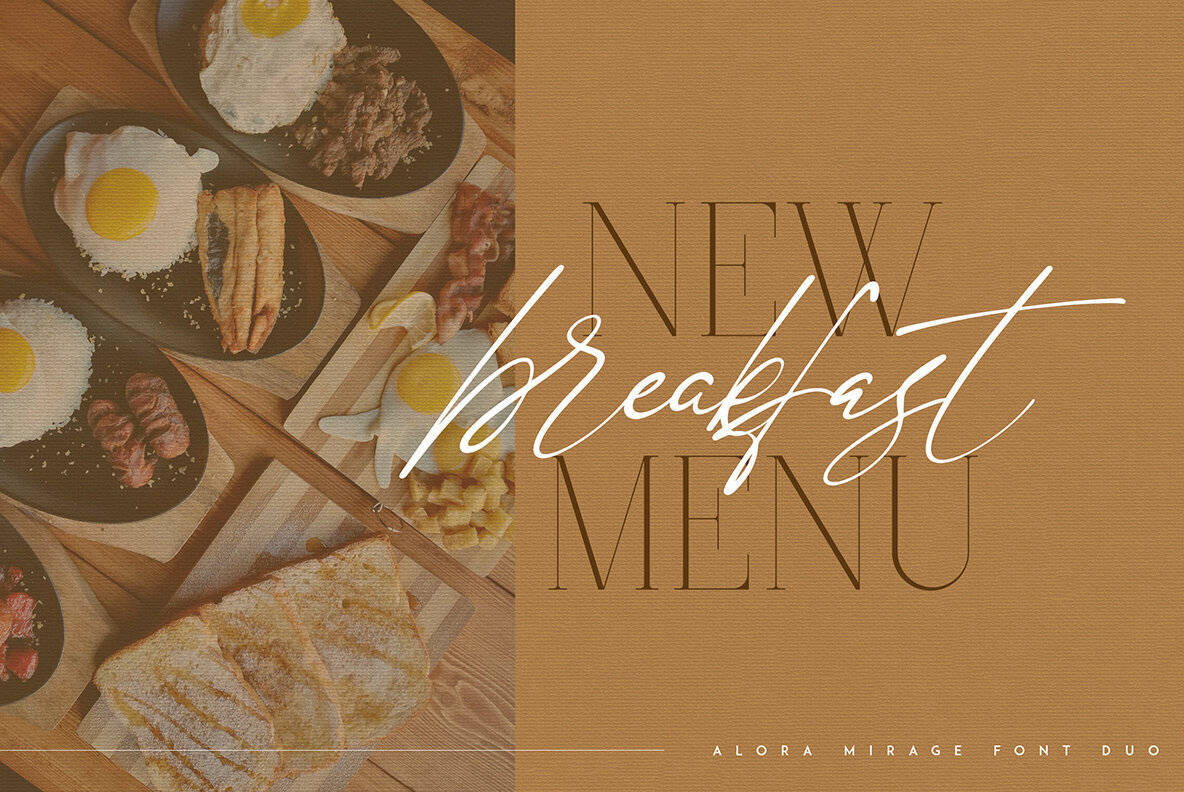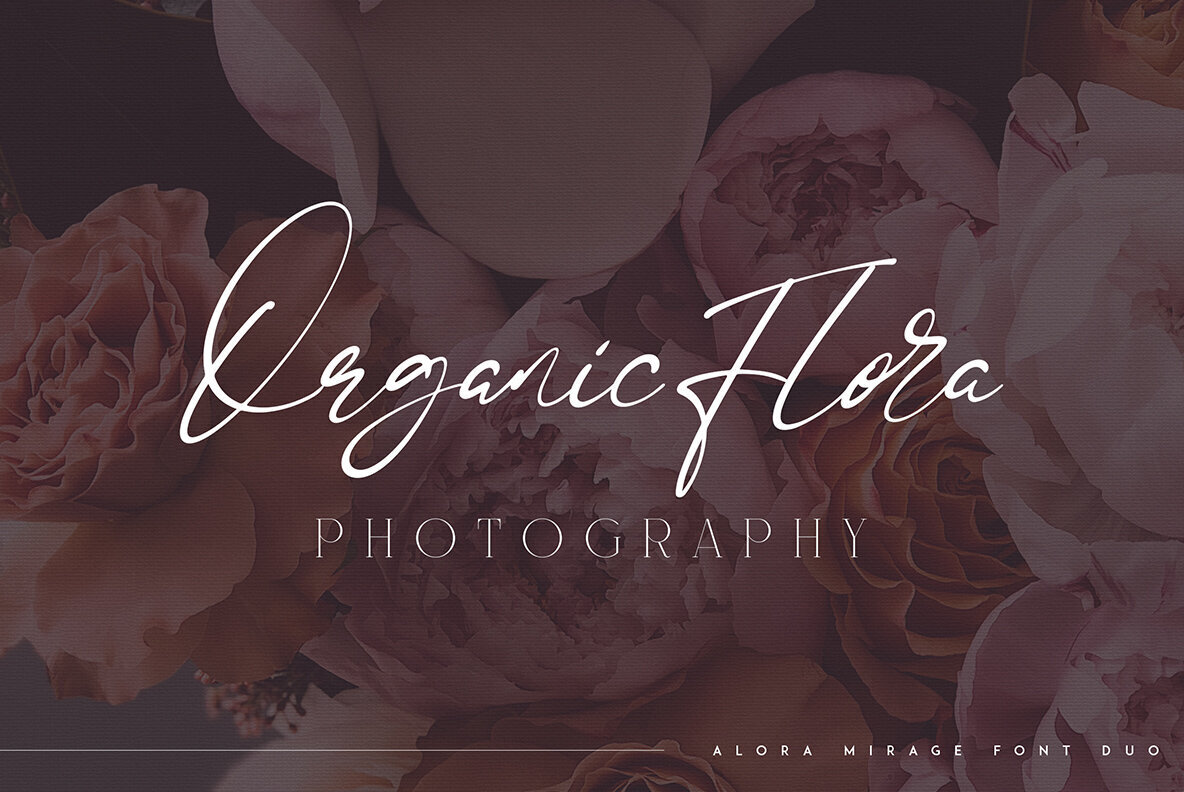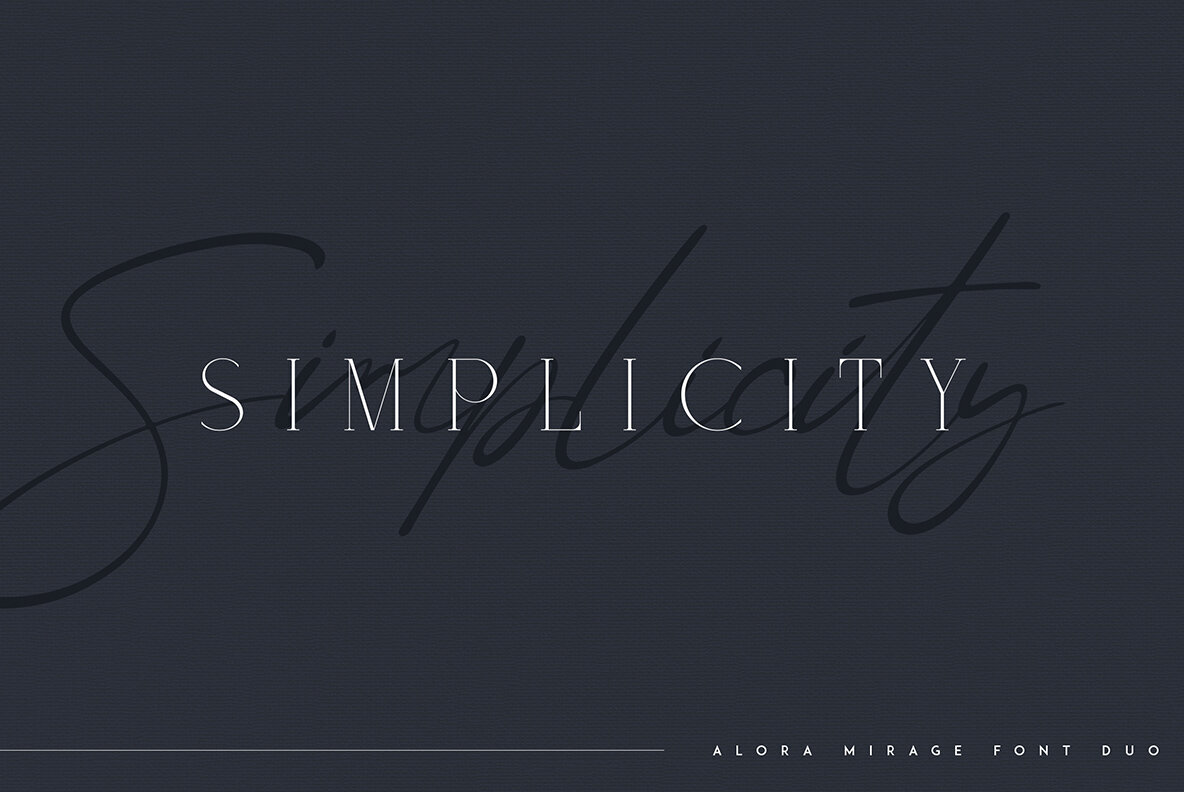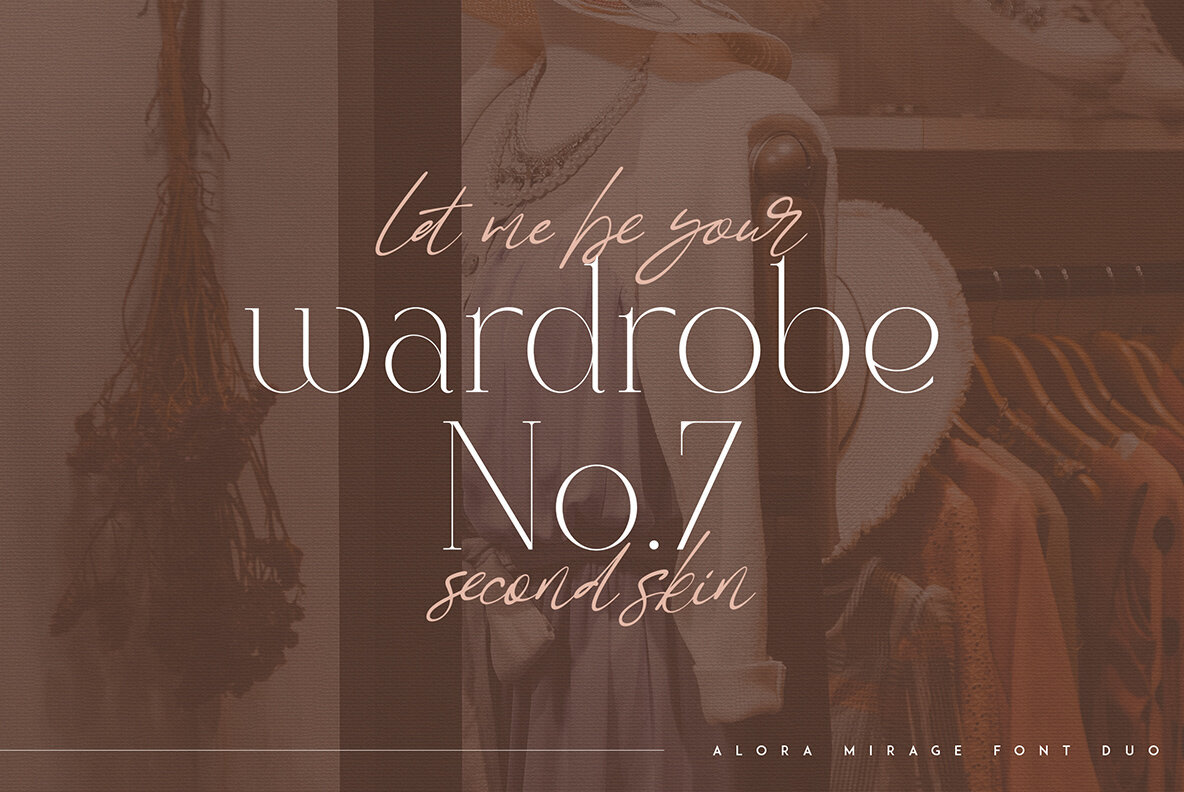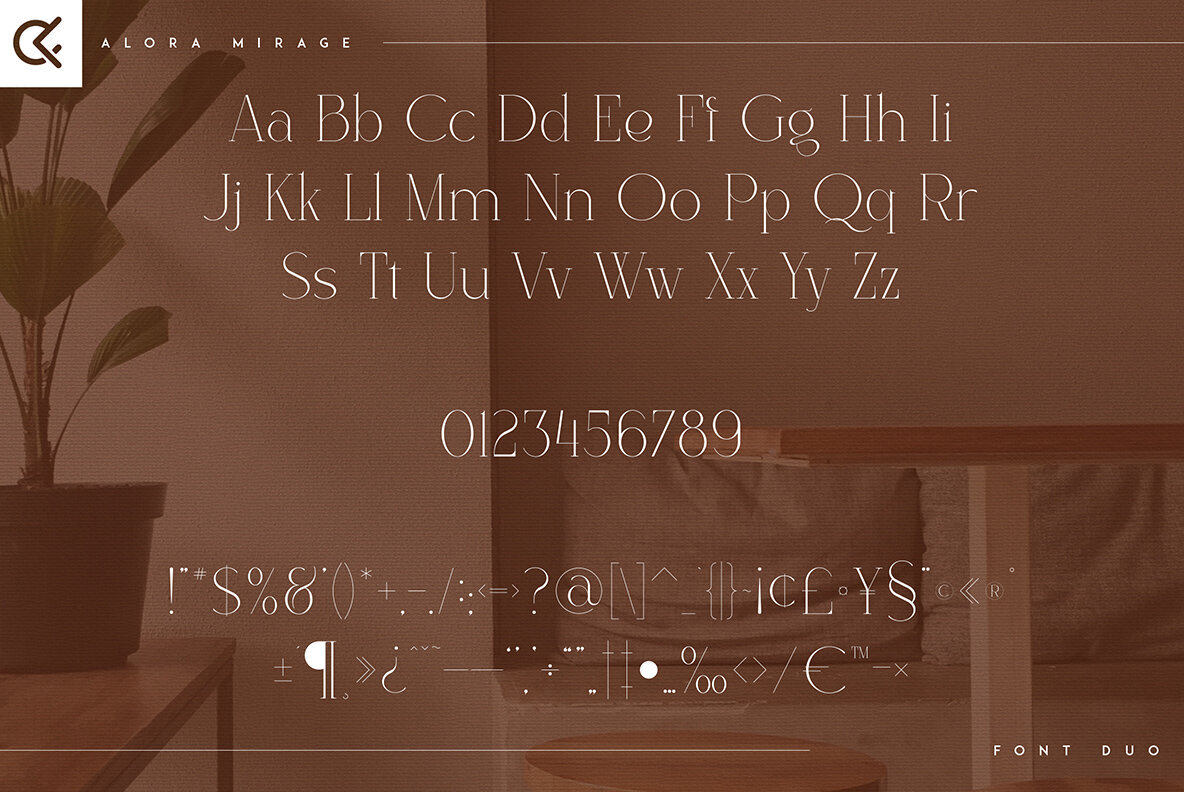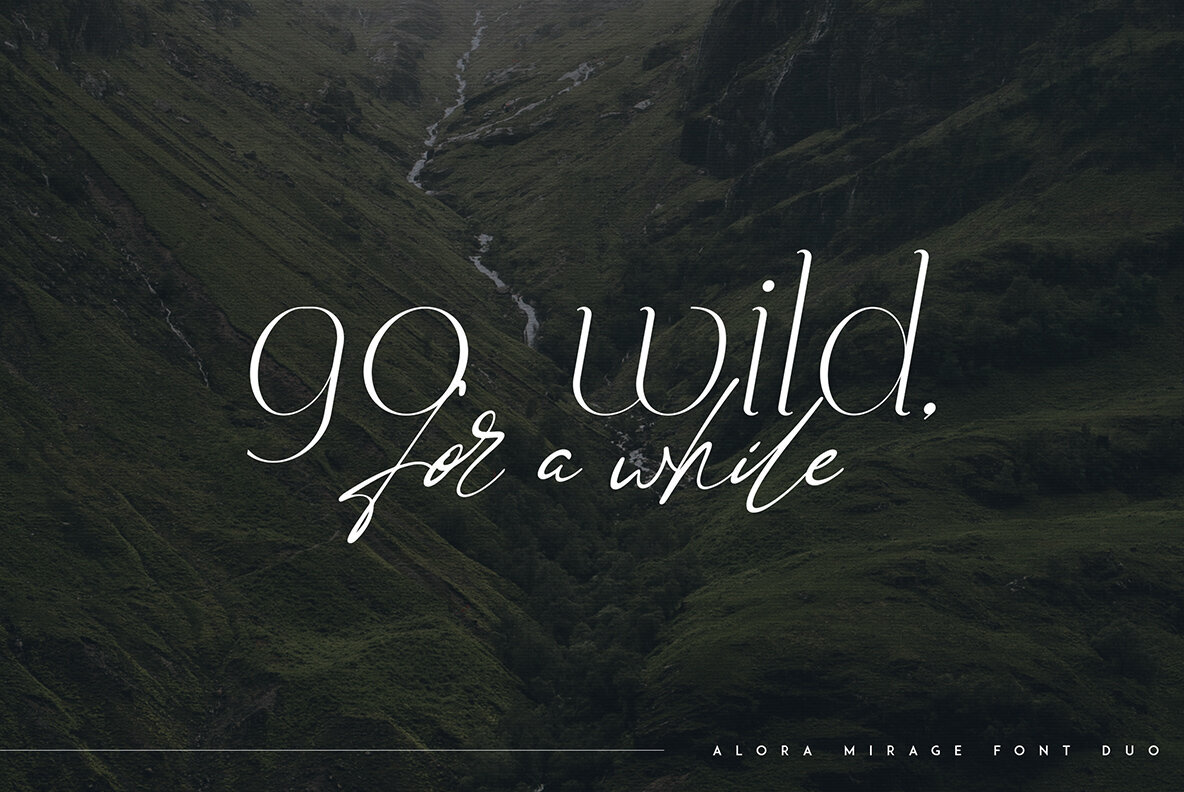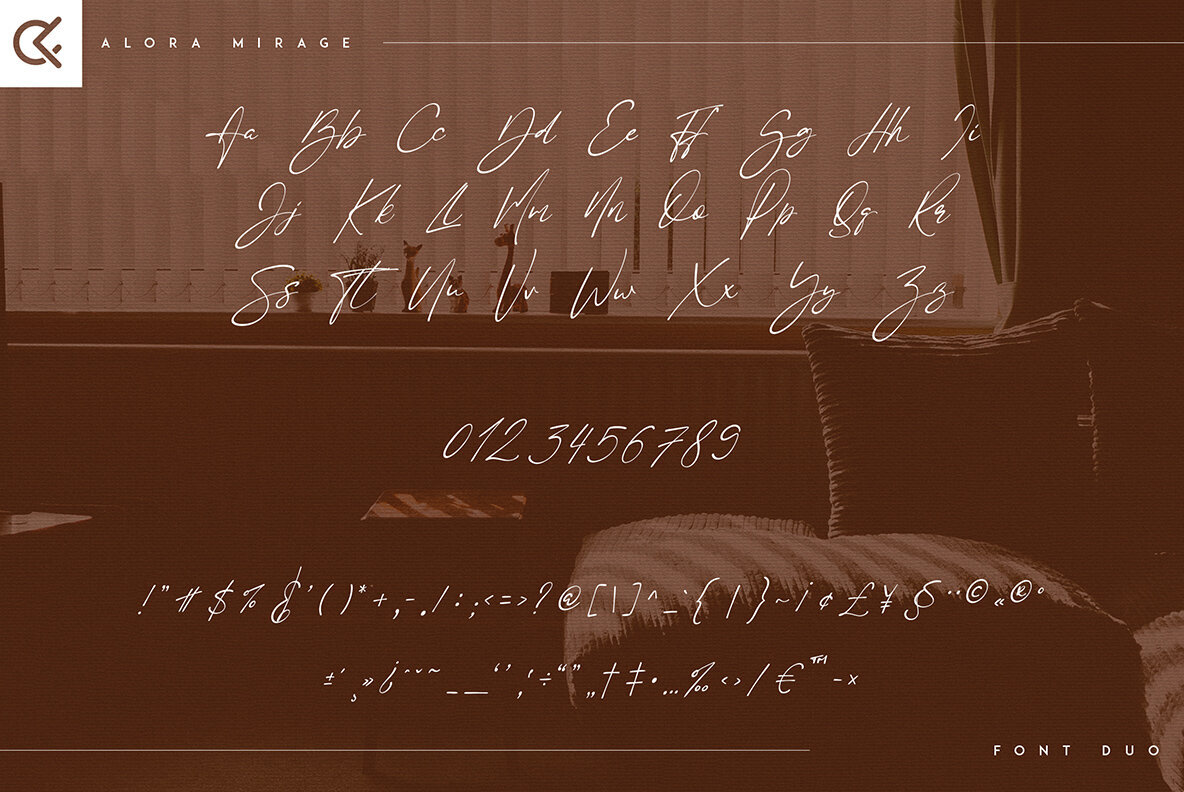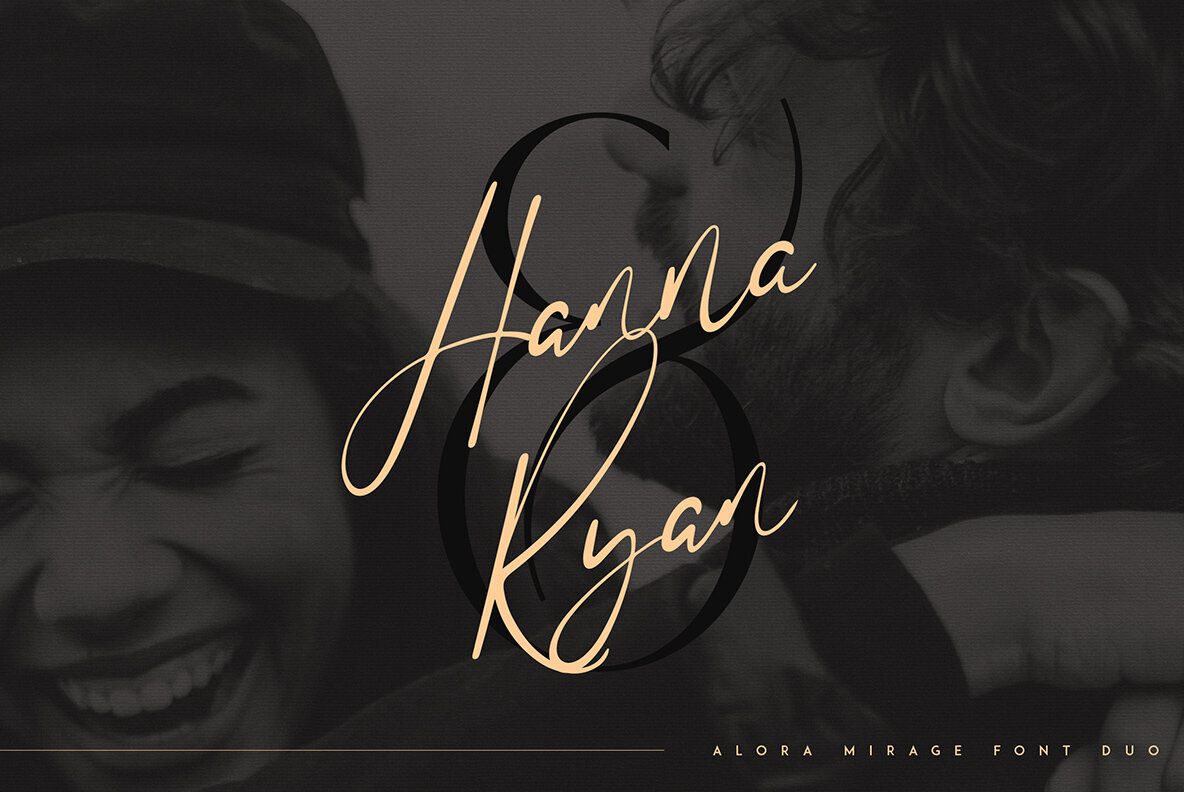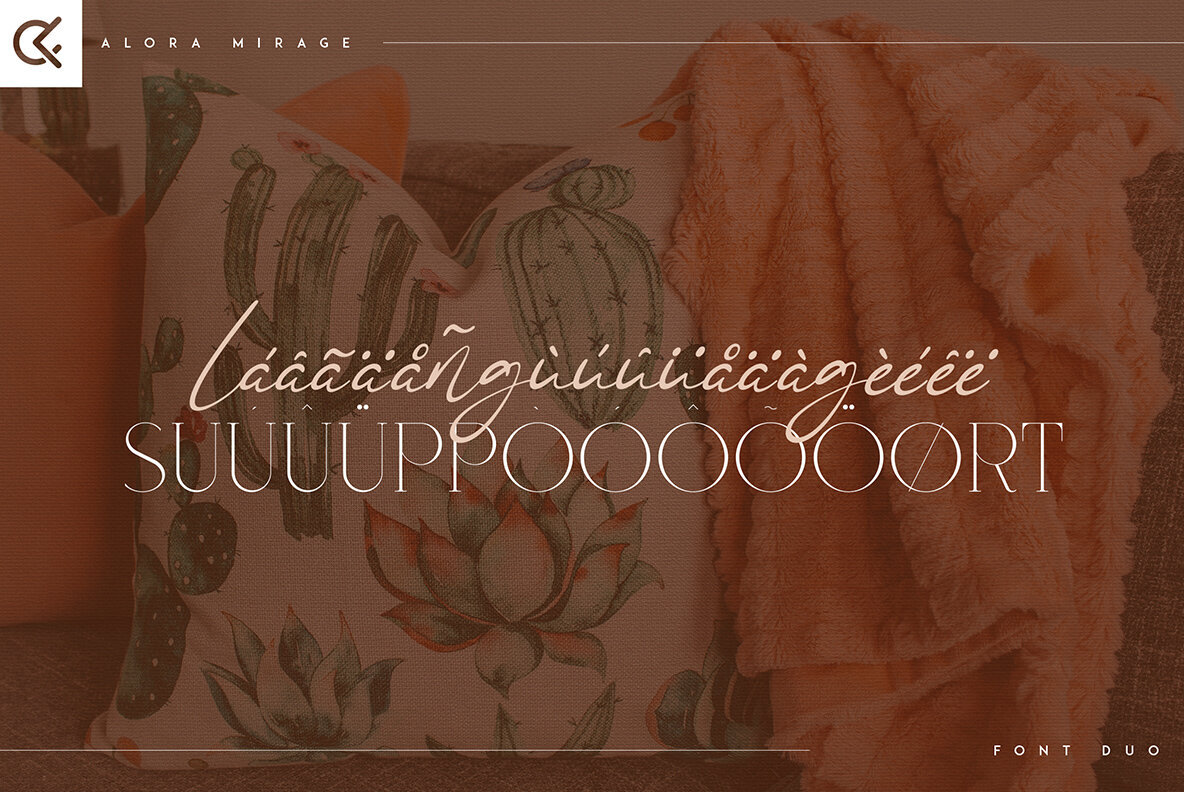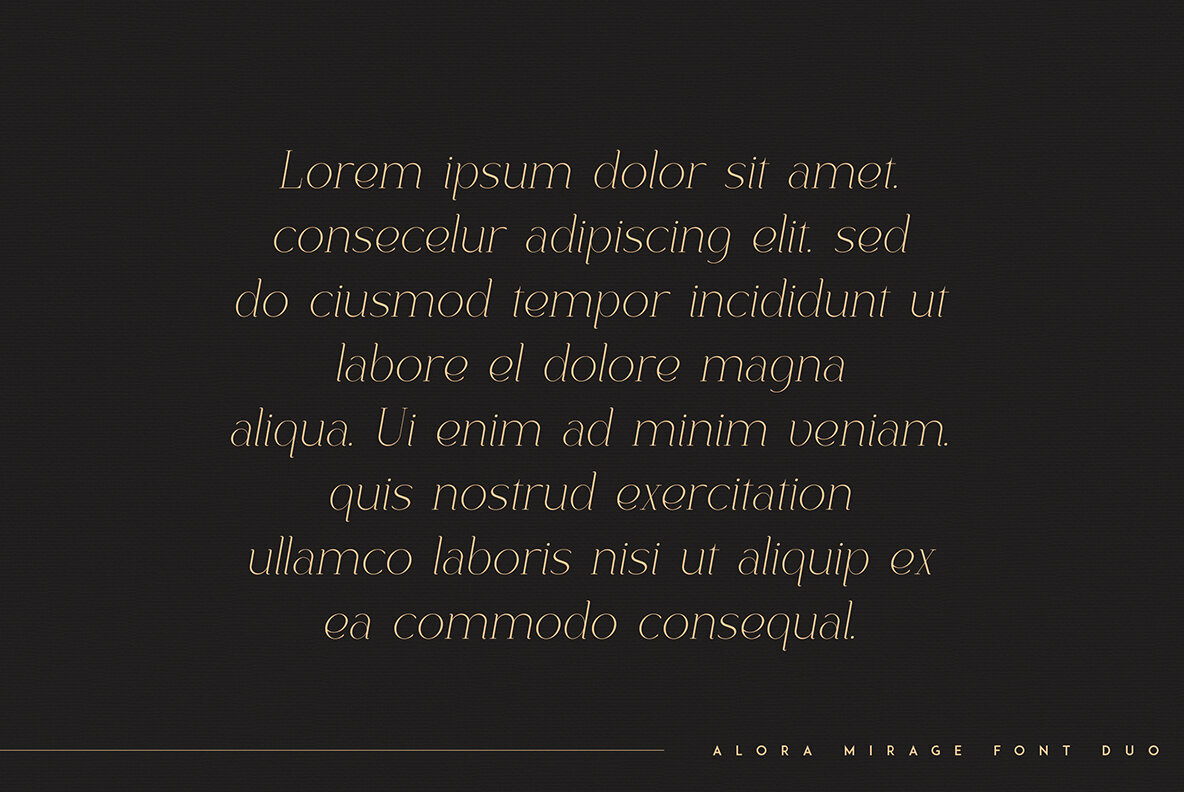
Alora and Mirage Font
Alora & Mirage presents a sophisticated pairing of modern typefaces designed to bring elegance and organic flow to your projects. With multilingual support, this versatile font duo excels in both large and small sizes, making it ideal for diverse applications. This font duo is well-suited for a variety of creative endeavors, including branding projects, home-ware designs, product packaging, and magazine headers. Its stylish presence also makes it a perfect choice for text overlays on background images. Please note: Mockups and backgrounds seen in previews are not part of the package.Alora & Mirage: Modern Elegance in a Font Duo
Perfect for Creative Projects